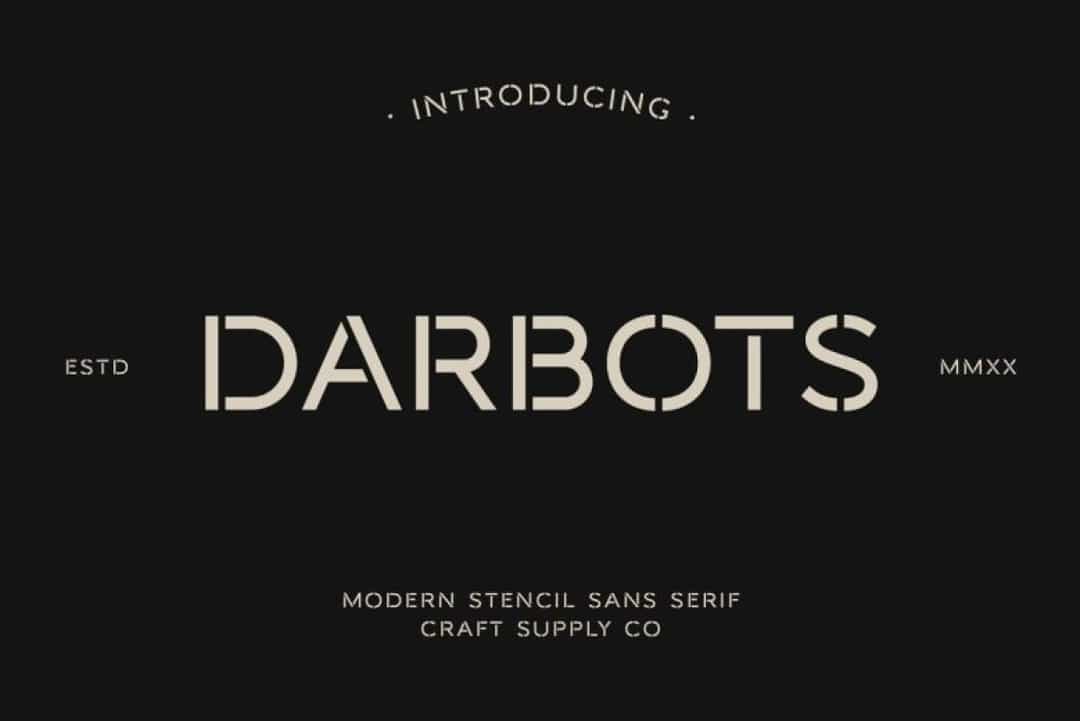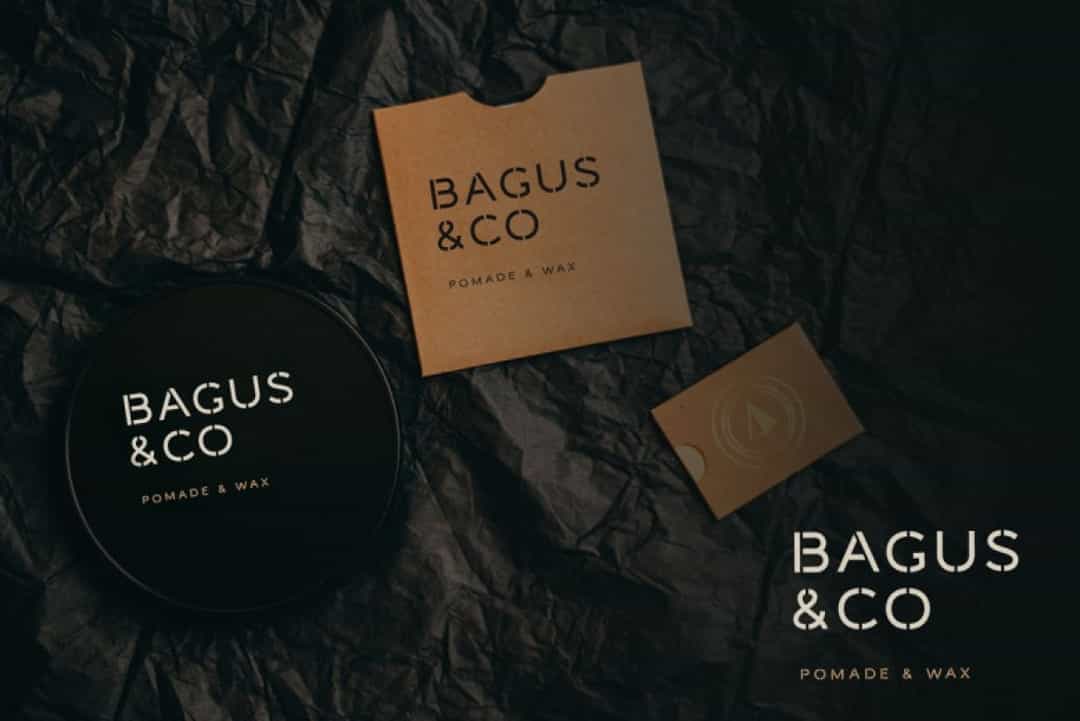
Darbots Contemporary Stencil Sans Serif was developed from scratch to feature its own internal structure that marries pure optical balance with geometric elements for an exciting visual result. Utilizing its versatility in terms of styles and sizes available – Darbots makes an ideal font choice for logo greeting cards posters quotes branding name cards stationary design title blog header art quote and typography applications.